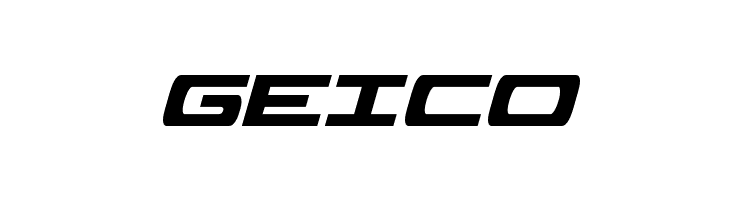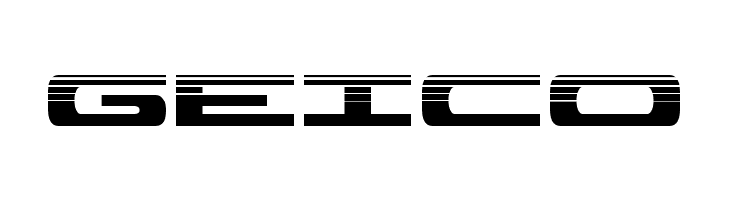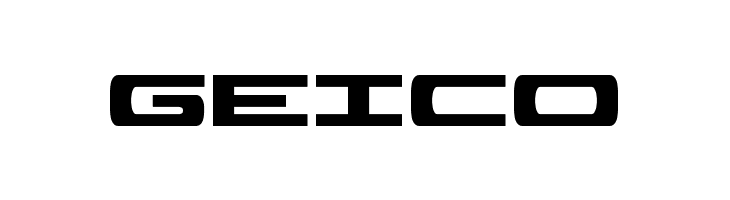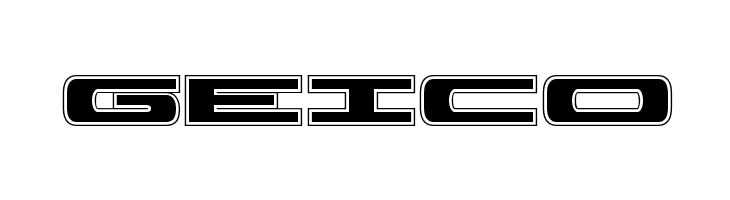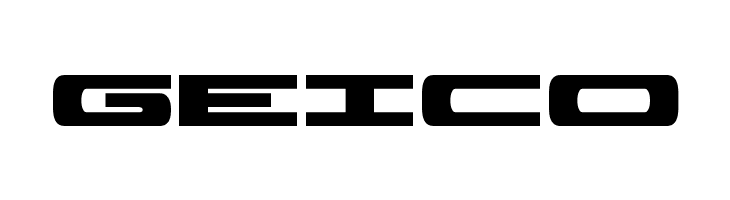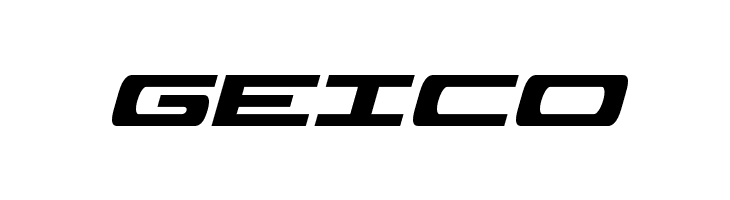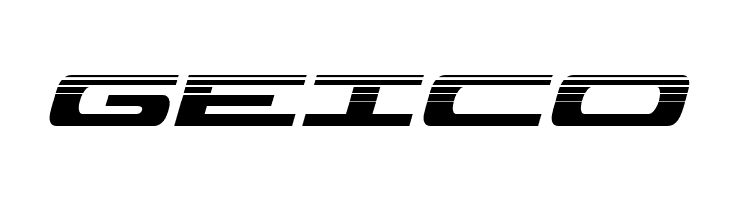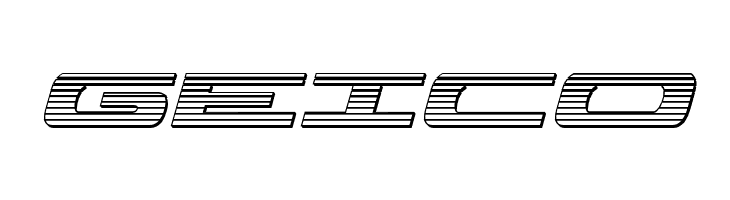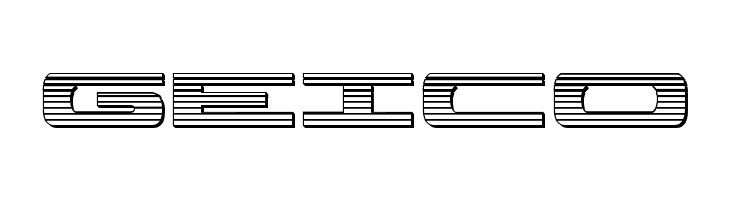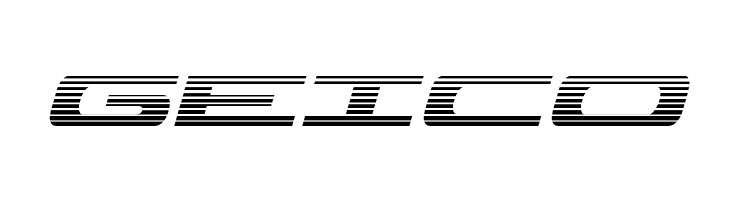
• Classic Cobra 3D Italic
A bold, 3D italic font with a futuristic and dynamic style.
• Classic Cobra Academy
A bold, futuristic font with sharp angles and outlined characters.
• Classic Cobra Academy
A bold, futuristic font with geometric outlines and a three-dimensional effect.
• Classic Cobra Academy Italic
A bold, italicized font with a modern, dynamic style.
• Classic Cobra Bold
A bold, geometric font with a modern and powerful aesthetic.
• Classic Cobra Bold
A bold, modern font with a futuristic and geometric design.
• Classic Cobra Bold Italic
A bold, italicized font with a modern, dynamic style.
• Classic Cobra Bold Italic
A bold, italicized font with a futuristic and sporty design.
• Classic Cobra Chrome
A bold, chrome-inspired font with a futuristic, retro aesthetic.
• Classic Cobra Chrome
A futuristic, chrome-like font with geometric shapes and sharp angles.
• Classic Cobra Chrome Italic
A sleek, italic font with a chrome-like, futuristic design.
• Classic Cobra Chrome Italic
A sleek, italicized font with a chrome-like, futuristic design.
• Classic Cobra Condensed
A bold, condensed font with a futuristic and angular design.
• Classic Cobra Condensed
A bold, modern, and geometric condensed font with angular characters.
• Classic Cobra Condensed Italic
A sleek, modern, condensed italic font with uniform stroke thickness and geometric design.
• Classic Cobra Condensed Italic
A sleek, condensed italic font with angular, dynamic characters.
• Classic Cobra Expanded
A bold, expanded geometric font with a futuristic style.
• Classic Cobra Expanded
A bold, geometric font with an expanded and futuristic style.
• Classic Cobra Expanded Italic
A bold, expanded italic font with a modern and dynamic style.
• Classic Cobra Expanded Italic
A sleek, modern, expanded italic font with medium contrast and a futuristic style.
• Classic Cobra Extra-Condensed